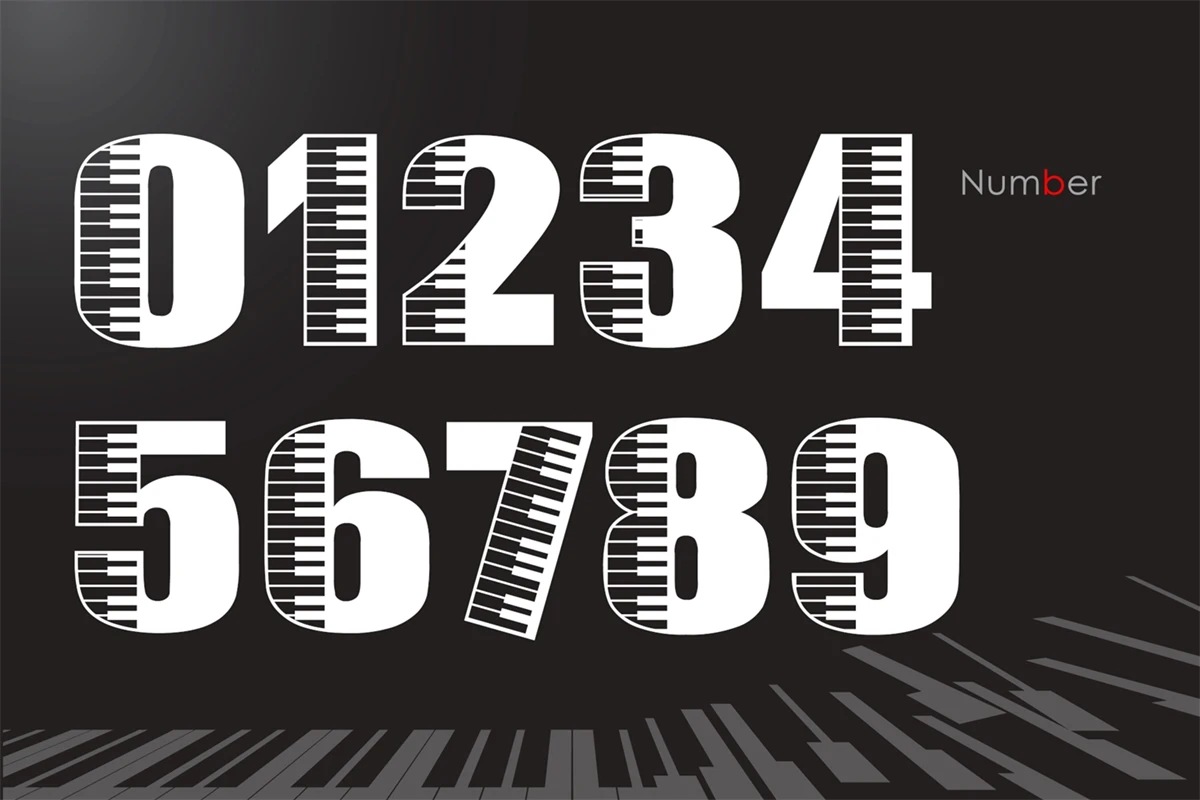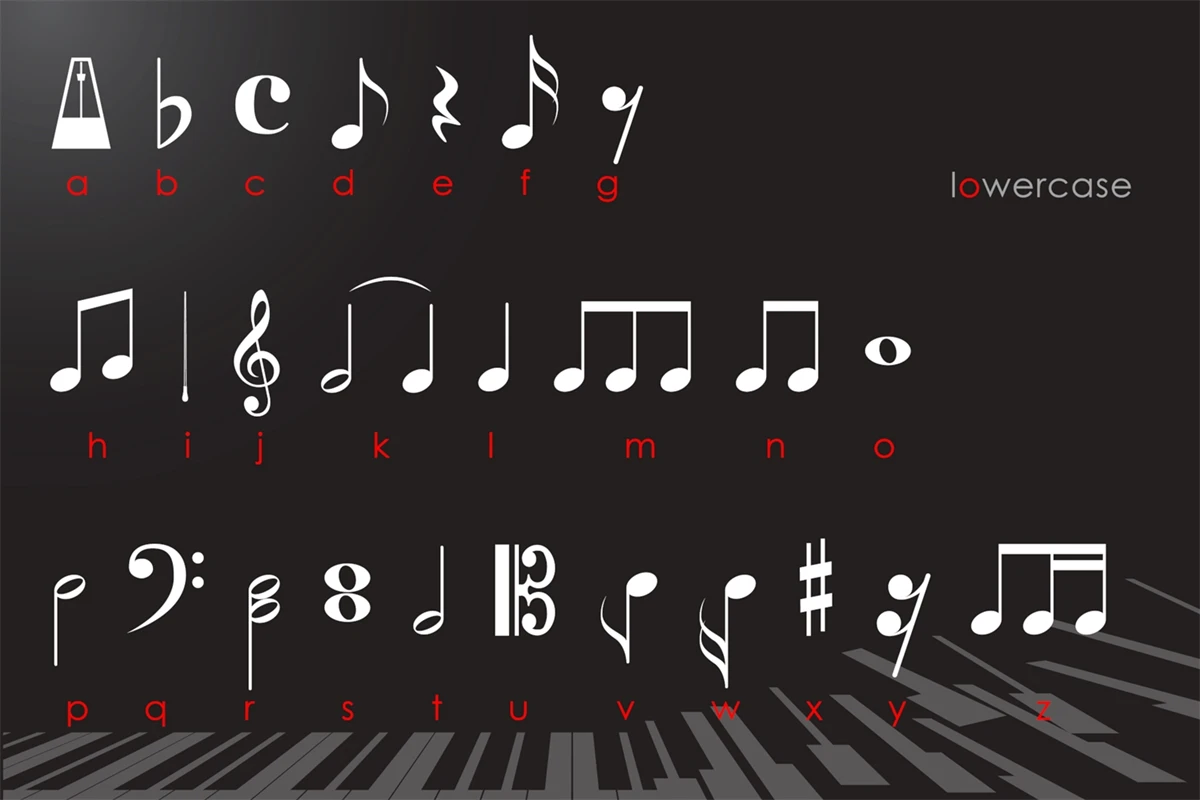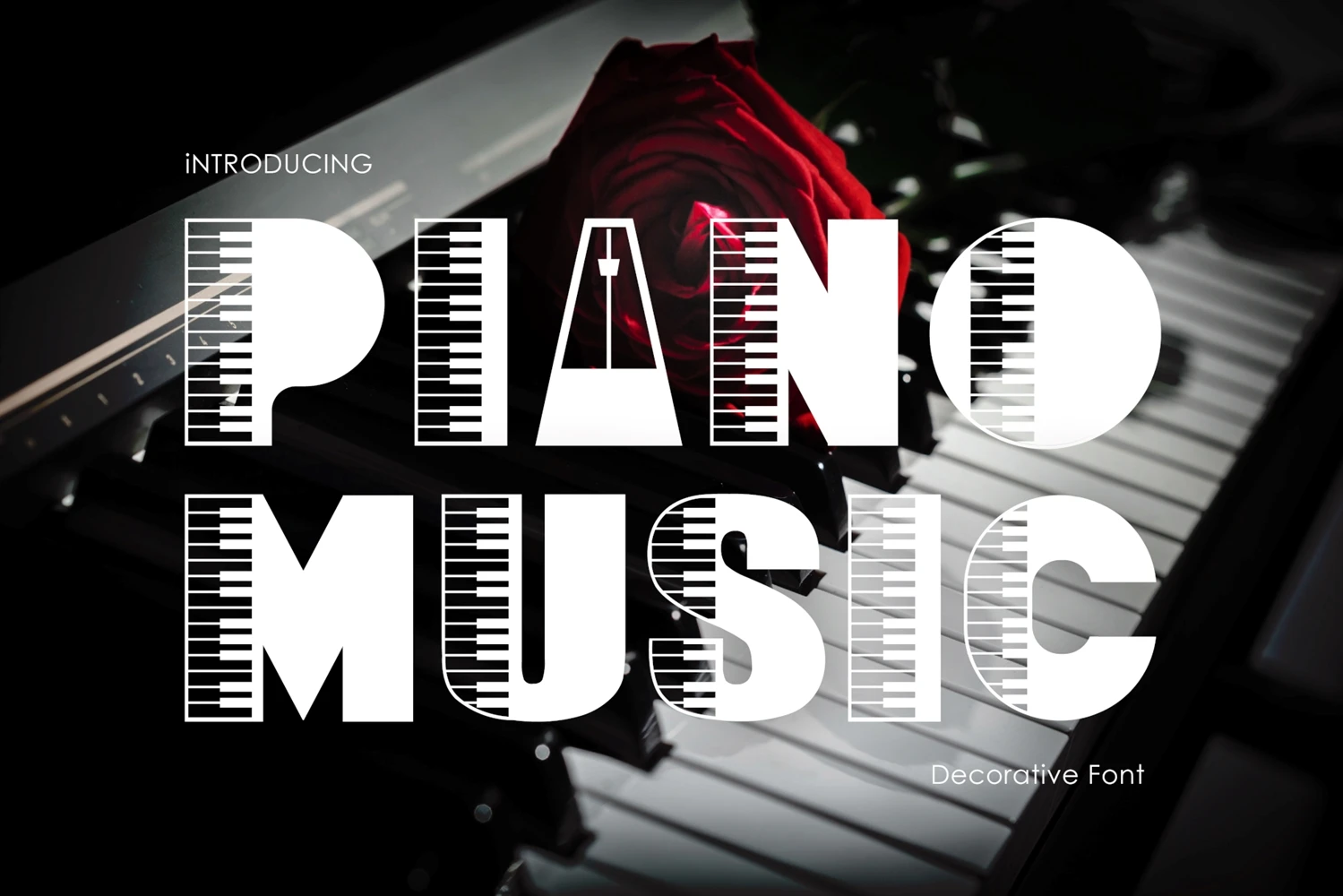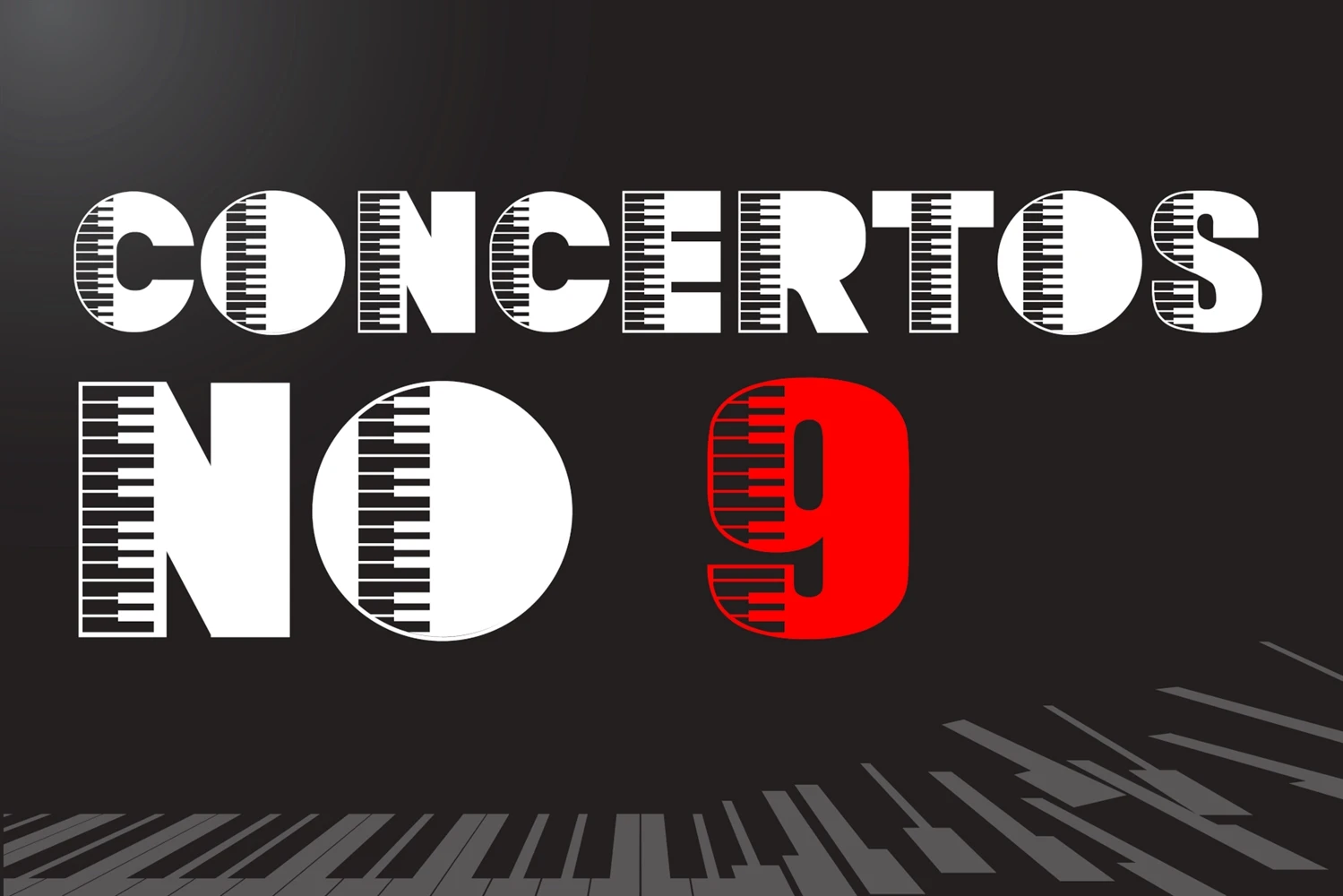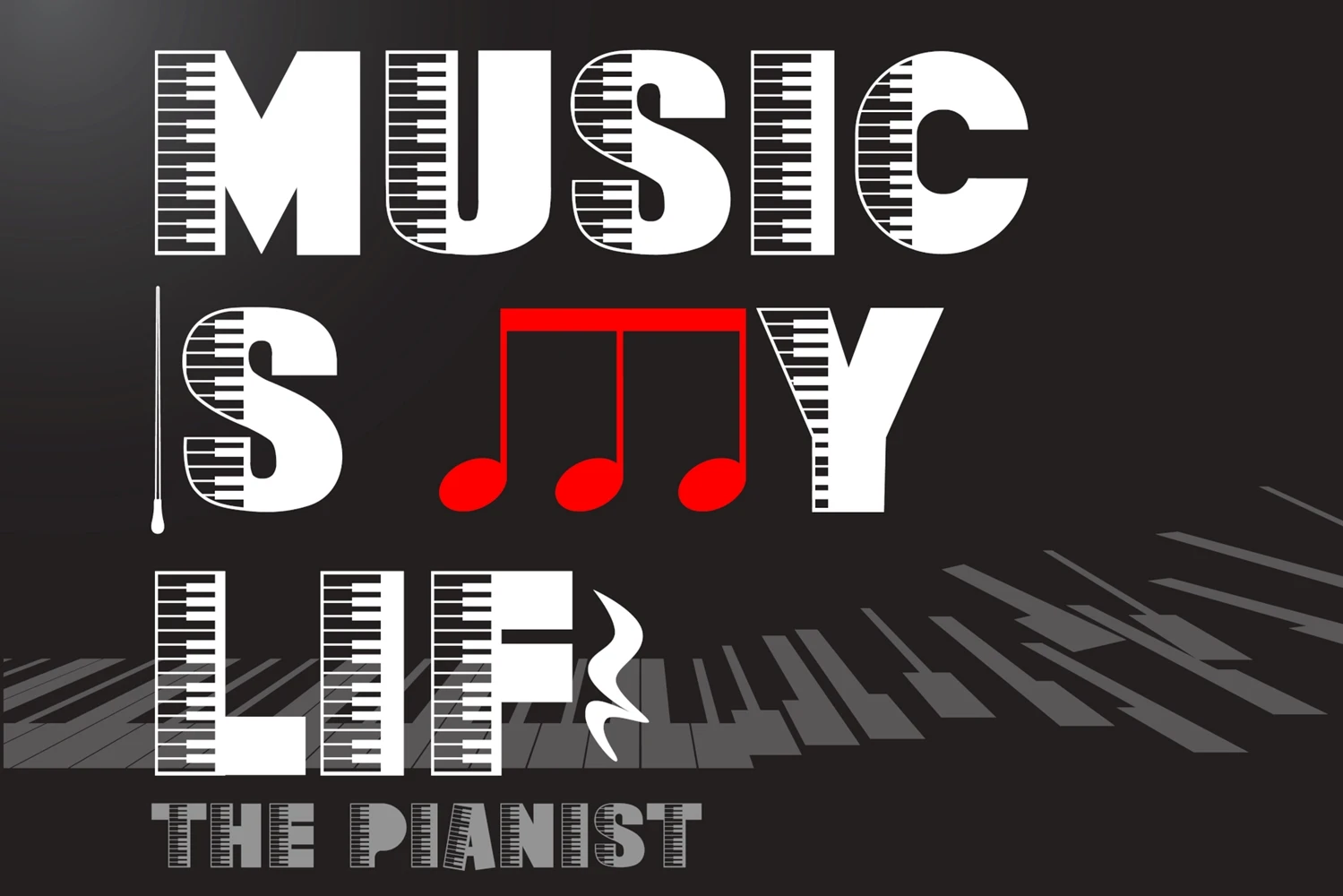
Piano Music is a decorative font. You can use it to create unique designs, music book covers, concert greeting cards, as well as many other creations that require a unique musical feel.